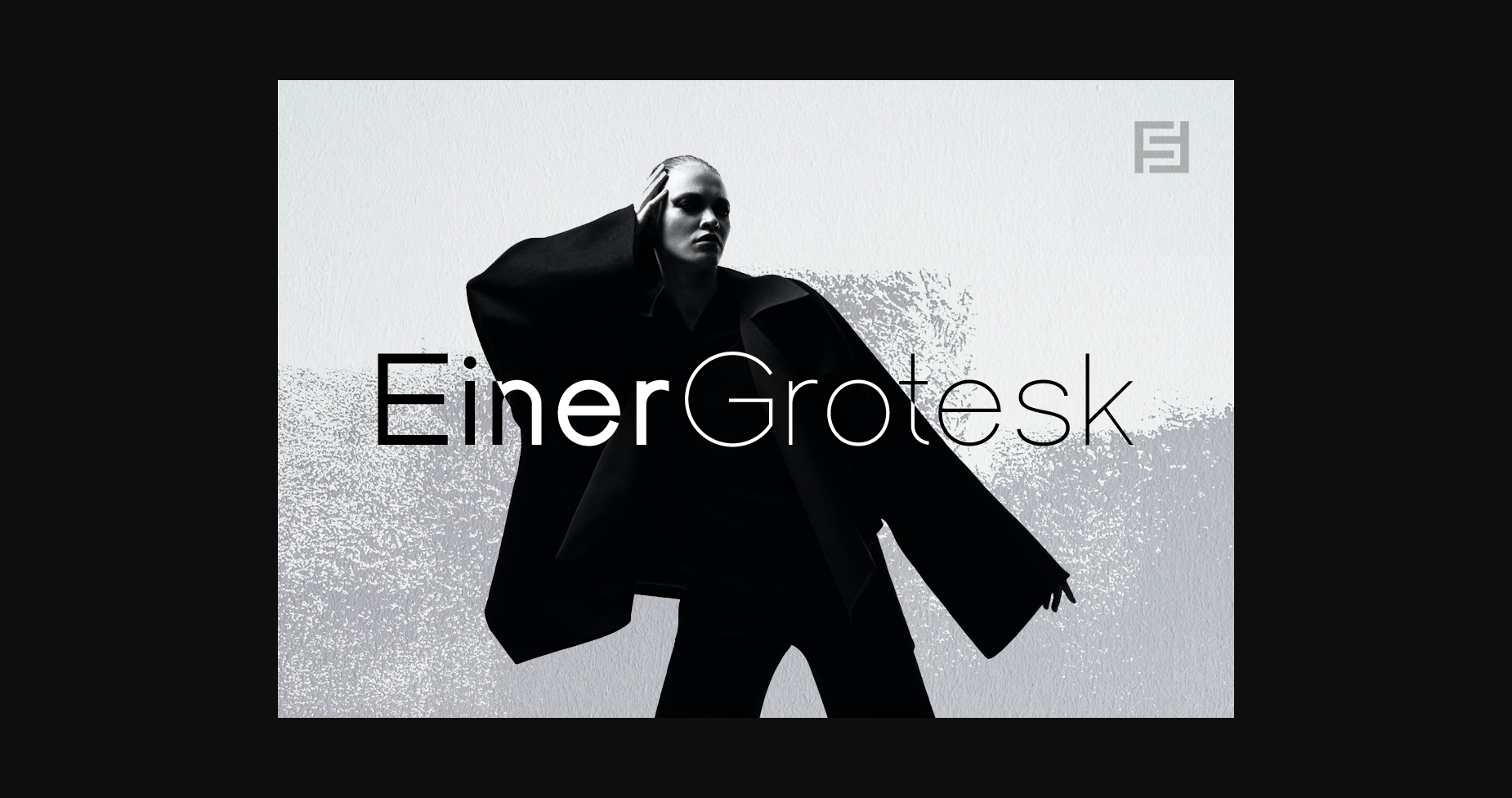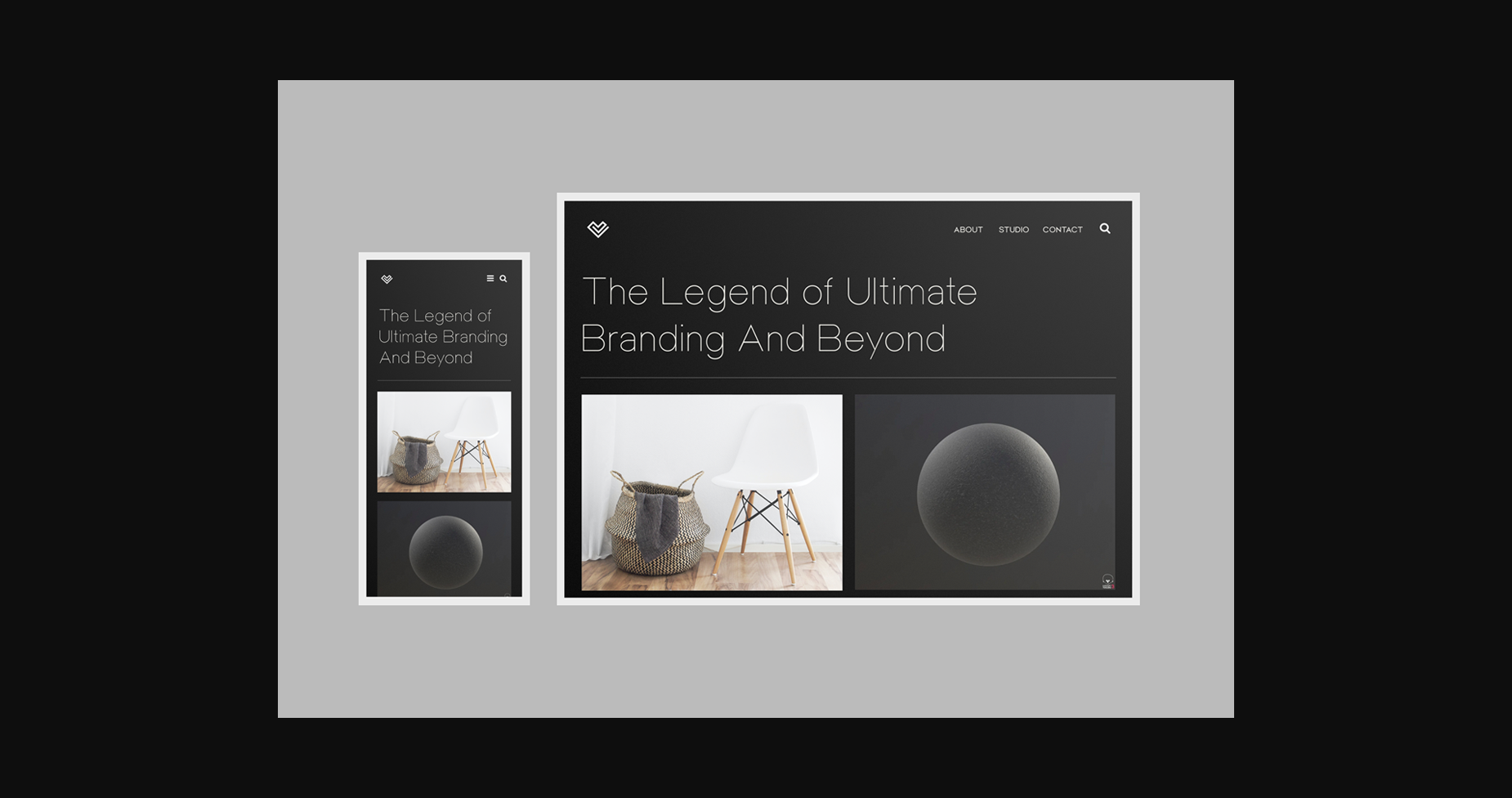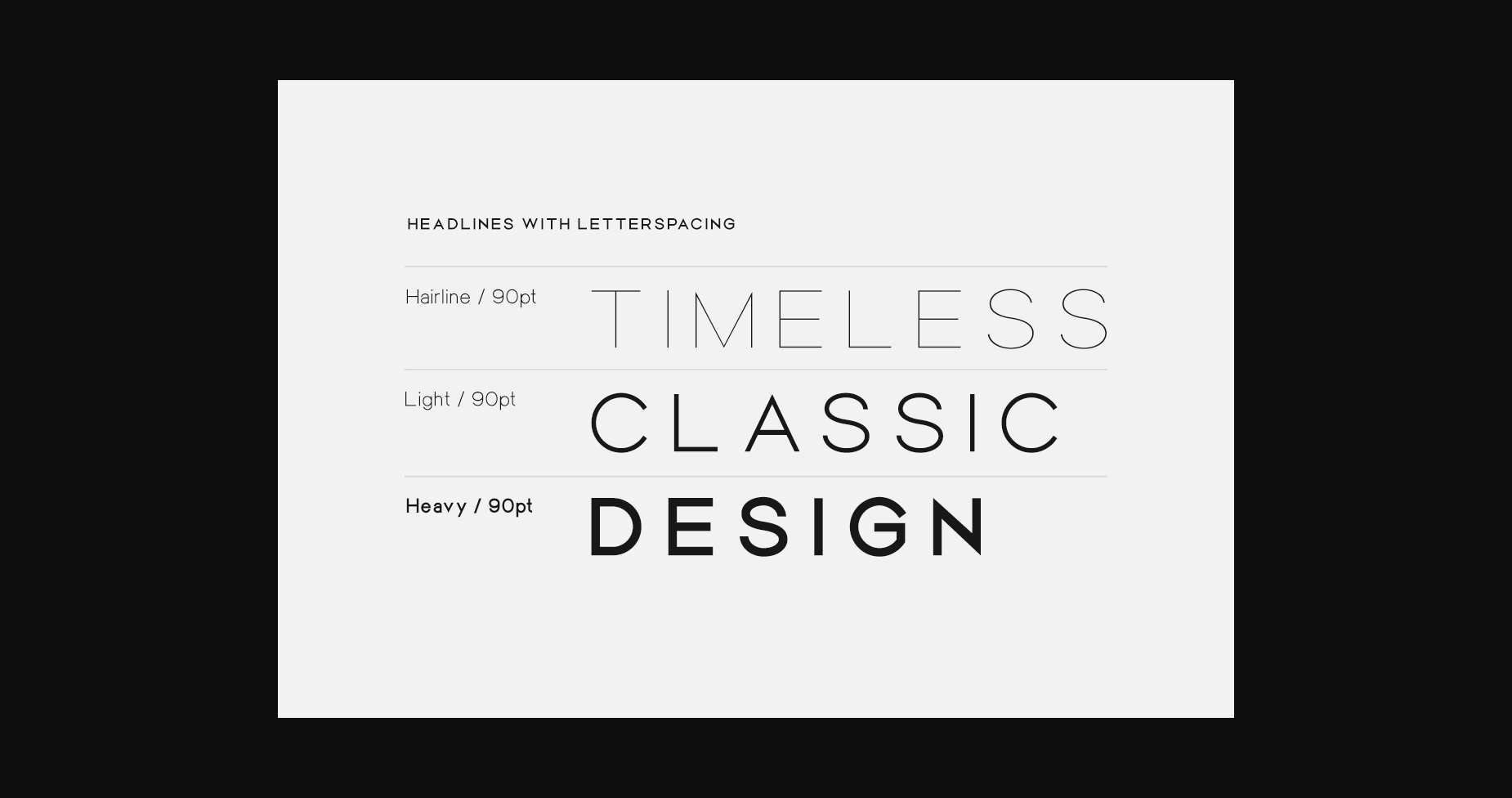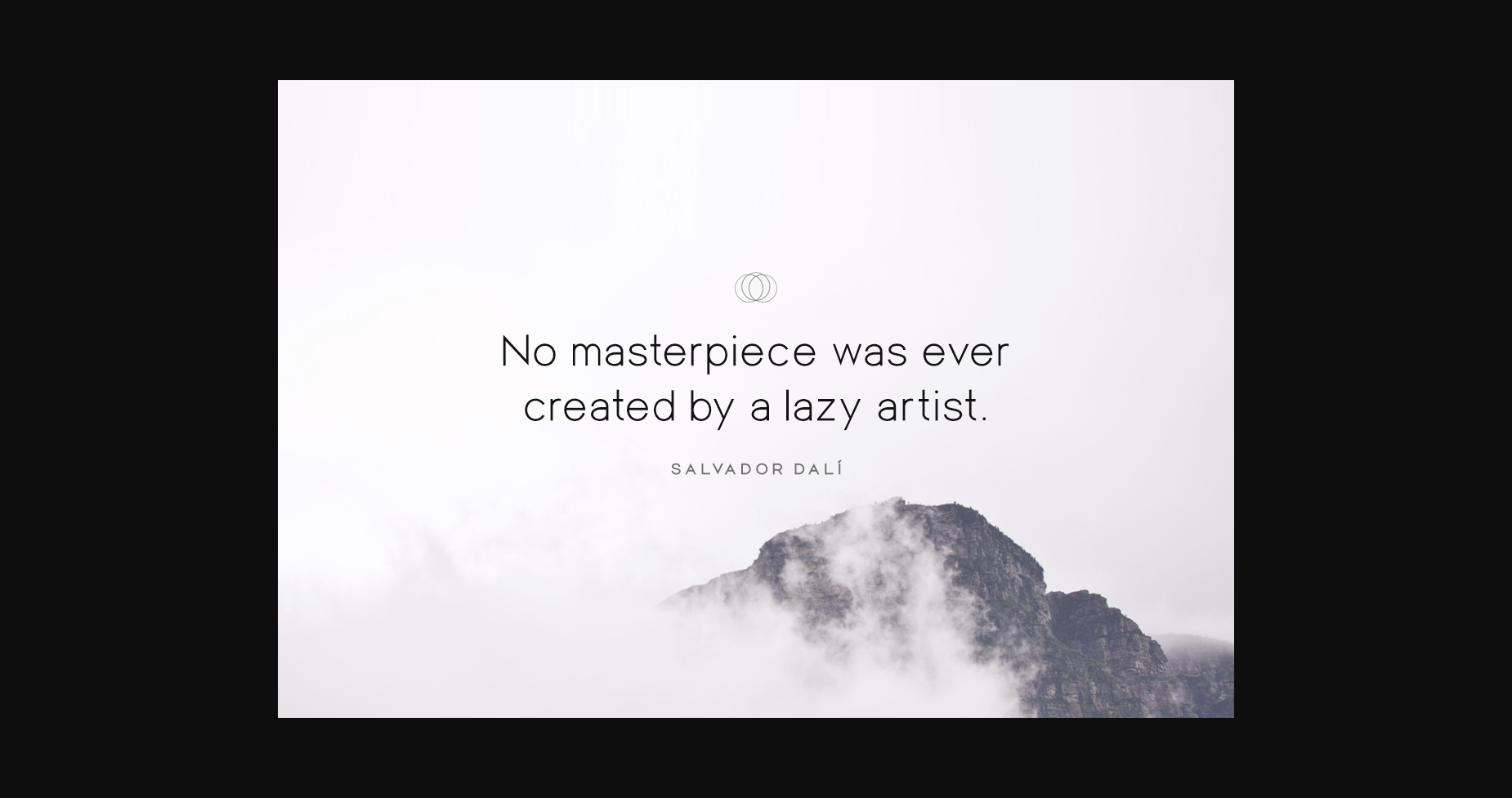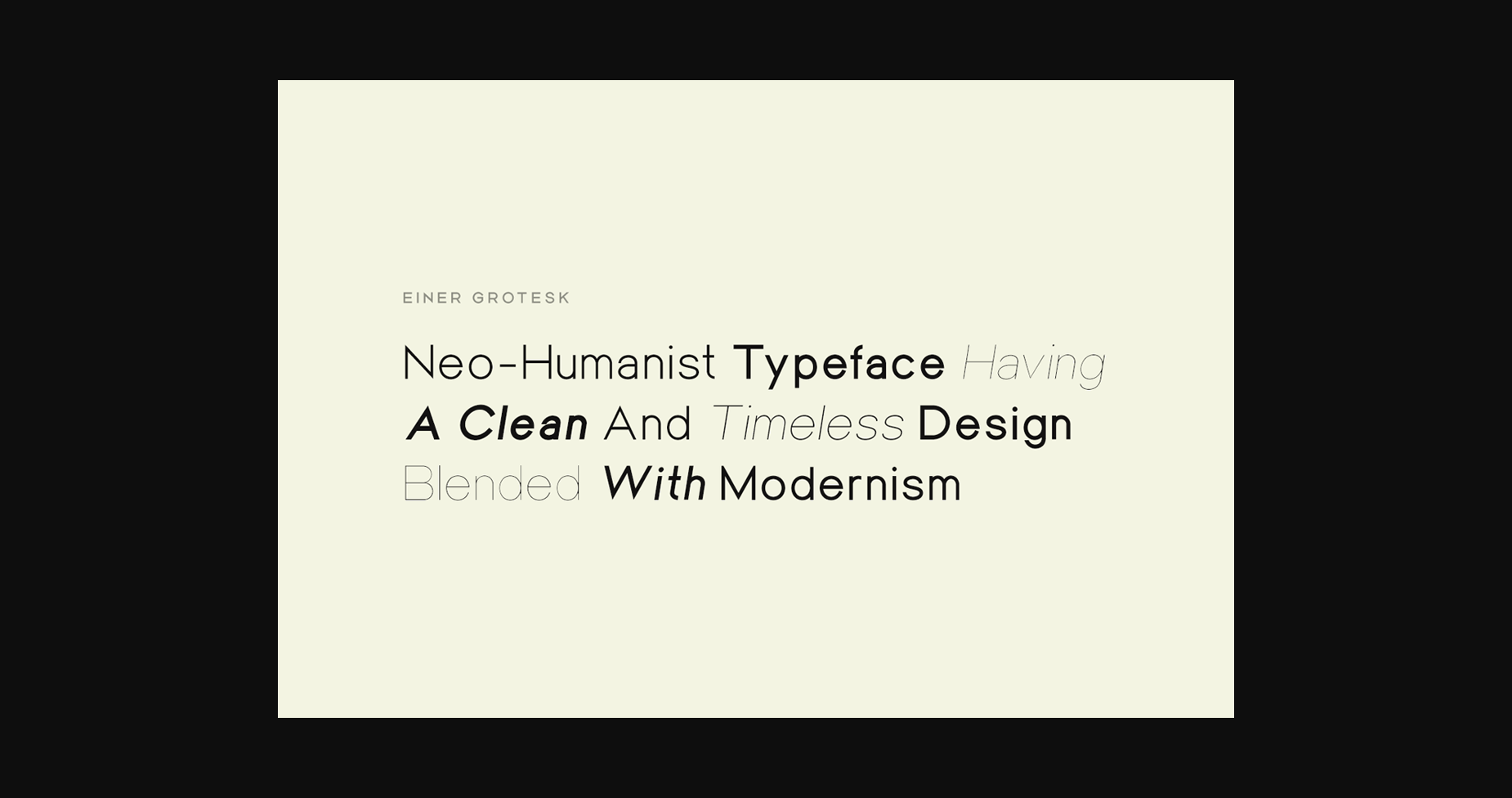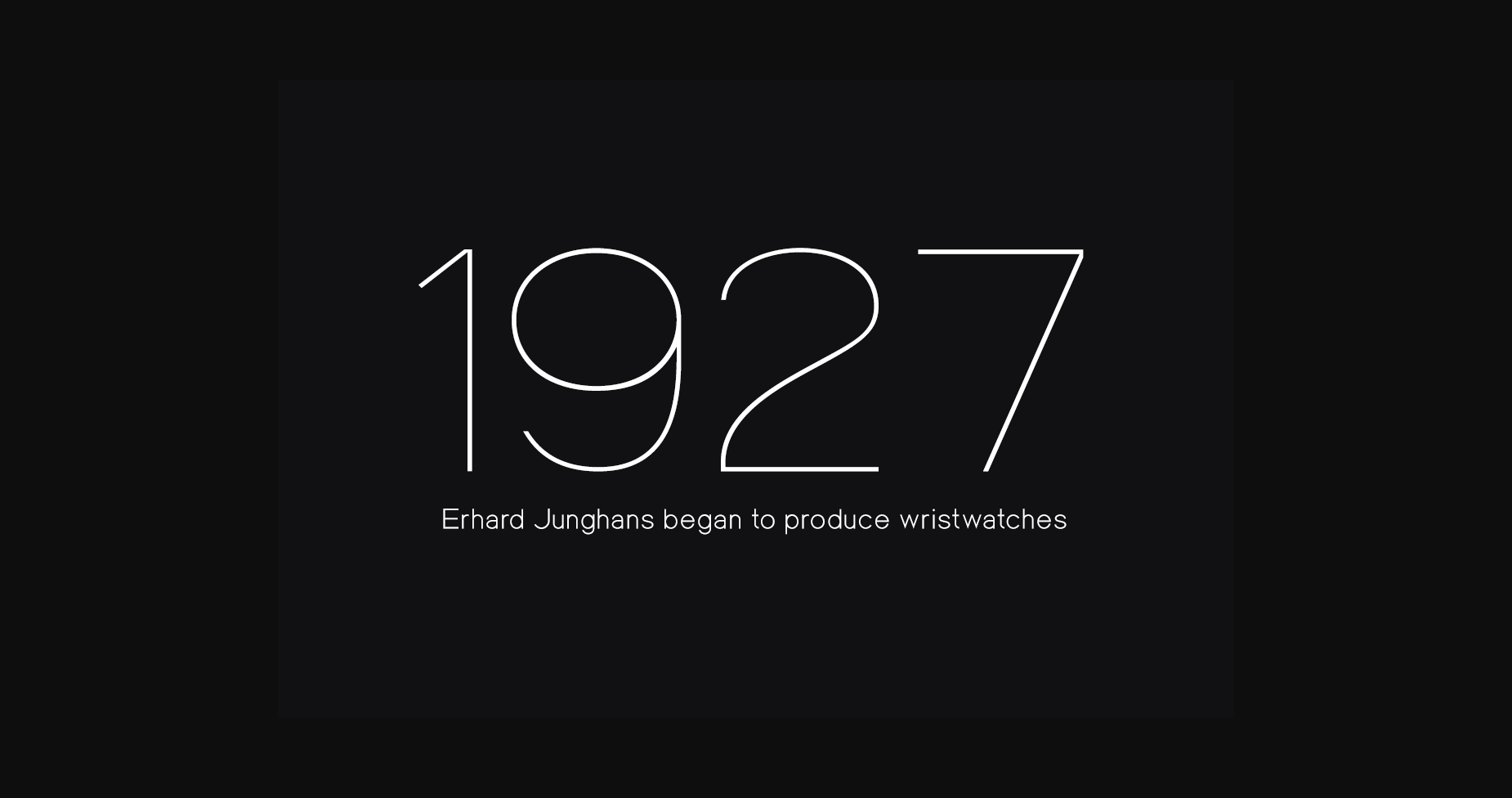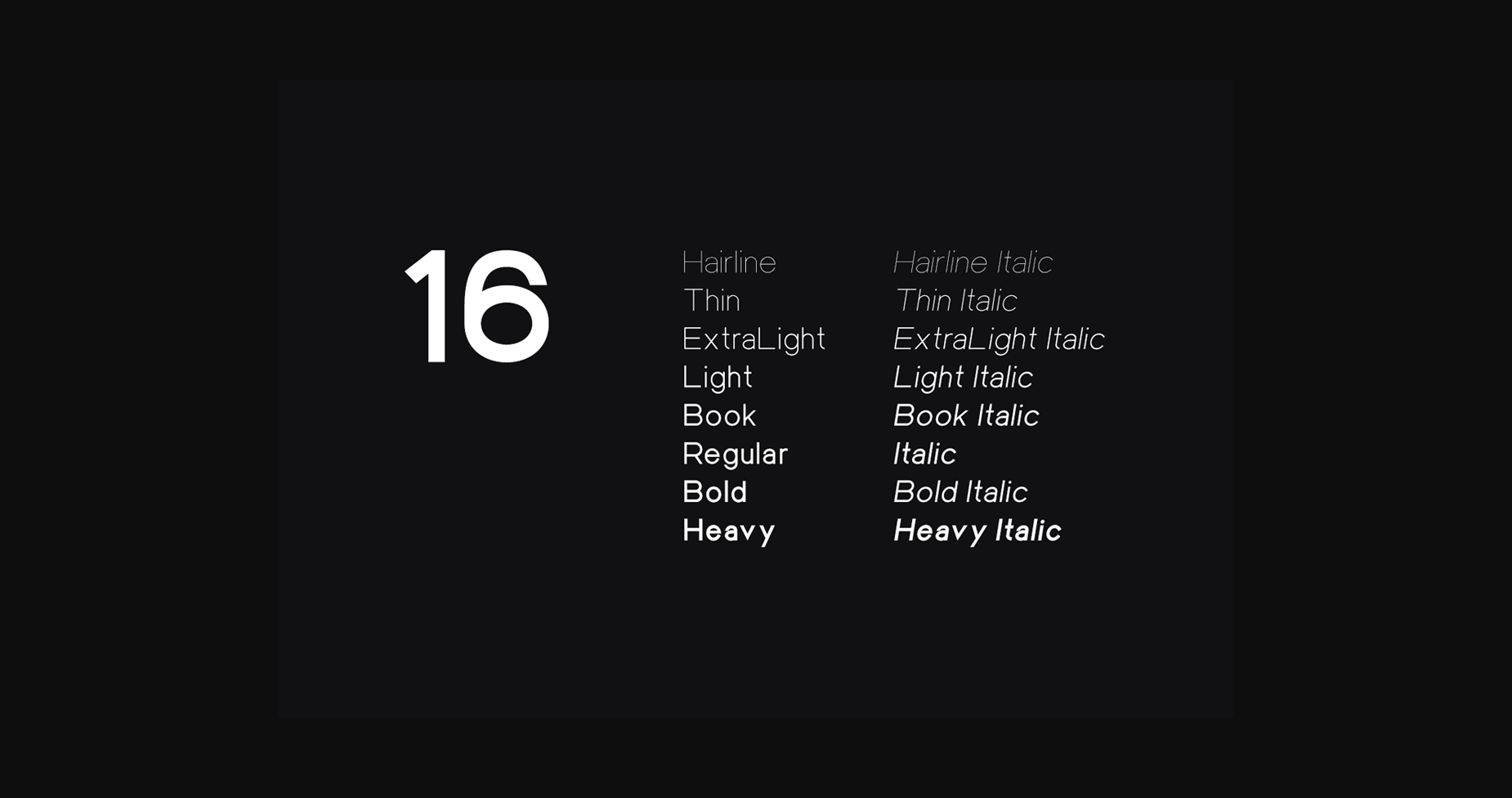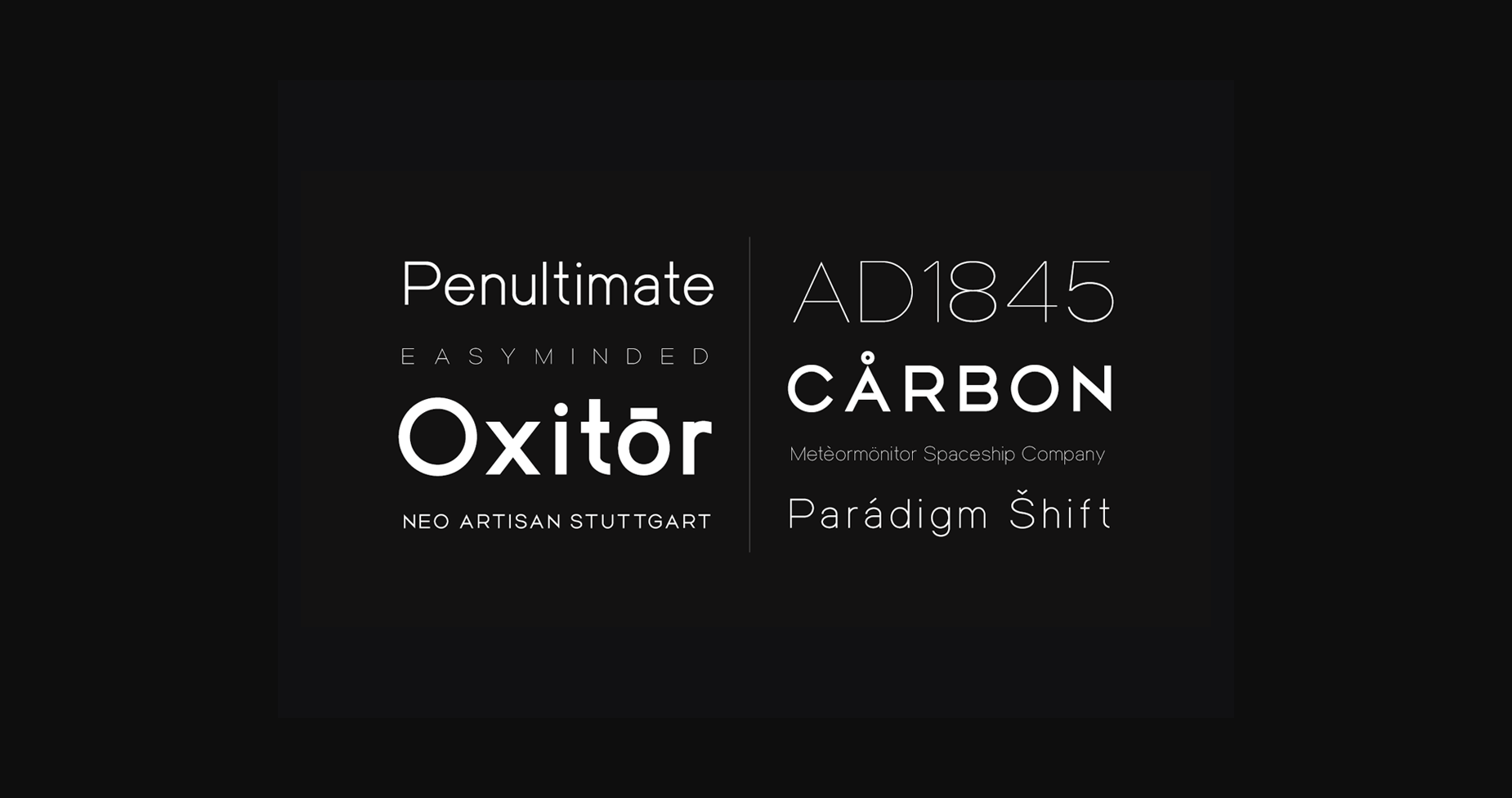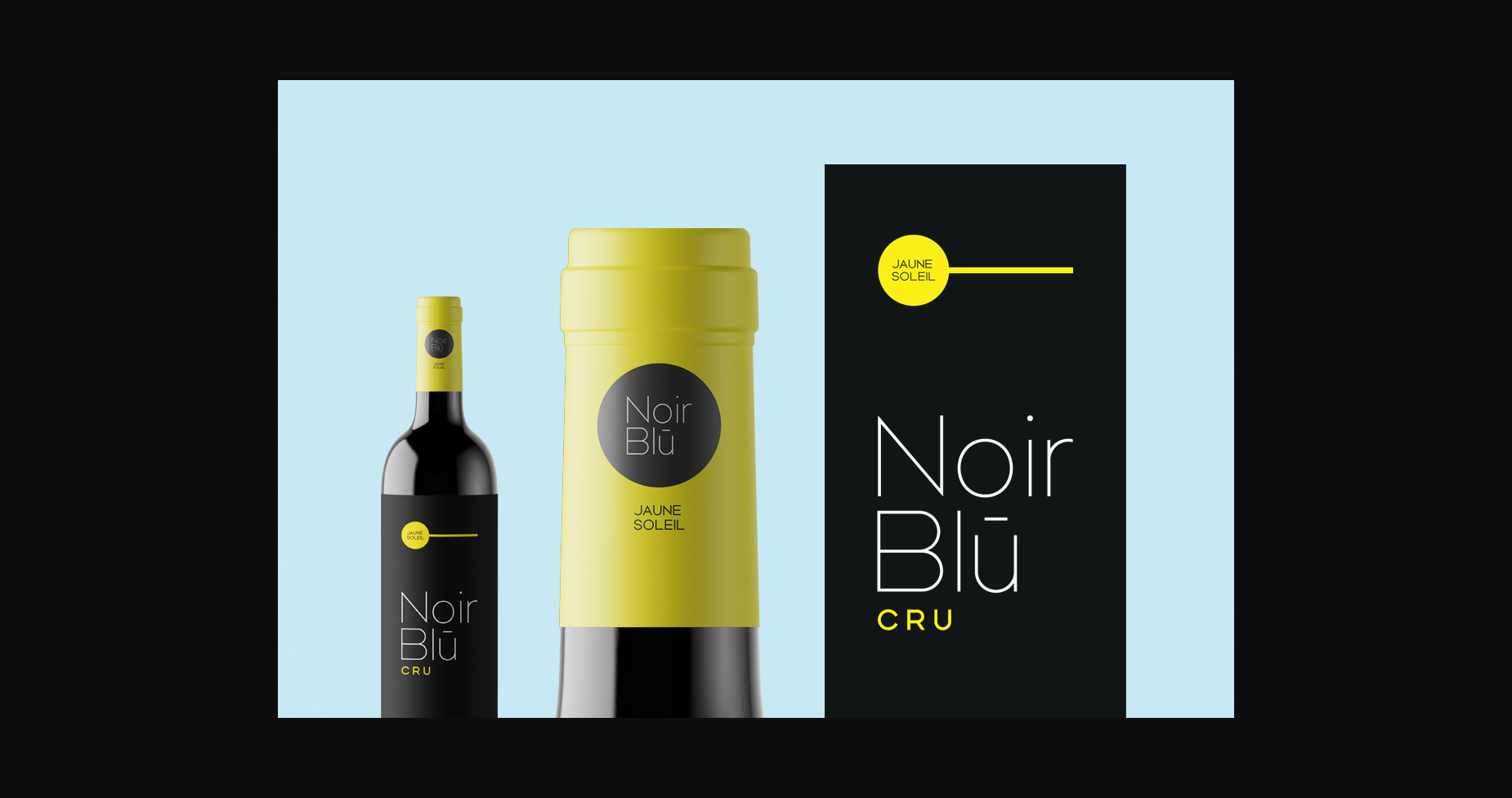
Einer Grotesk Font
About Einer Grotesk Font
Einer Grotesk is a minimal and neat sans serif font. It can easily be matched to an incredibly large set of projects, so add it to your creative ideas and notice how it makes them stand out!